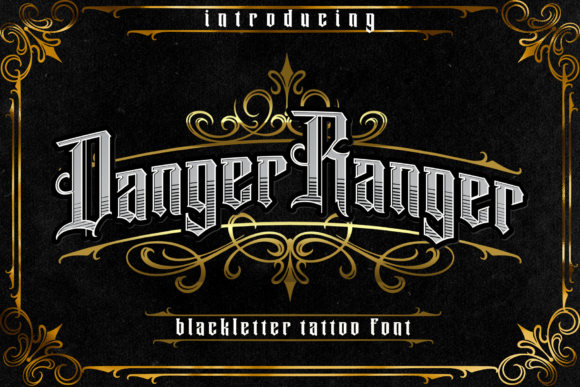
Introducing Danger Ranger Font, the ultimate choice for music poster enthusiasts! Created by the talented Dansdesign, this bold and elegant blackletter font is guaranteed to captivate your senses and elevate your designs to new heights.
With its meticulously crafted details and unique style, Danger Ranger Font stands out from the crowd. Whether you're designing a concert poster, album cover, or promotional material for a music event, this font will make a lasting impression on your audience.
Unlock your creativity and let Danger Ranger Font be your secret weapon. Its versatility allows it to seamlessly blend with any theme or genre, making it the perfect choice for musicians, bands, and music lovers alike. From heavy metal to classical symphonies, this font will beautifully complement your artwork and add a touch of sophistication.
But Danger Ranger Font is not just about aesthetics. It's a powerful tool that brings your words to life. Each letter exudes a sense of strength and mystery, creating a visually striking impact that will leave viewers intrigued and captivated. Let your words resonate with passion and intensity, making a bold statement with every design.
Not only does Danger Ranger Font offer a visually stunning experience, but it also provides an effortless user experience. With its easy-to-read characters and smooth curves, you'll save valuable time while creating stunning visuals. Say goodbye to tedious editing and hello to seamless designs that effortlessly convey your message.
Expand your font library with Danger Ranger Font and unlock a world of possibilities. Perfectly suited for both digital and print mediums, this font adapts flawlessly to any project. Enhance your website, social media posts, flyers, and more with this versatile and eye-catching font.
In conclusion, Danger Ranger Font is more than just a font; it's a statement. Let it be your creative companion and watch as your designs come to life with passion and flair. Download Danger Ranger Font today and embark on a journey of artistic excellence. Your audience will be captivated, your message will be heard, and your designs will never be the same again.